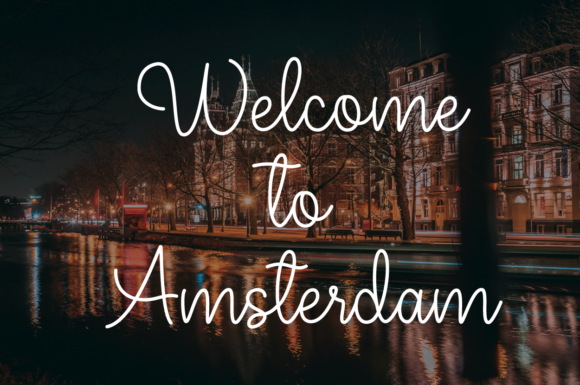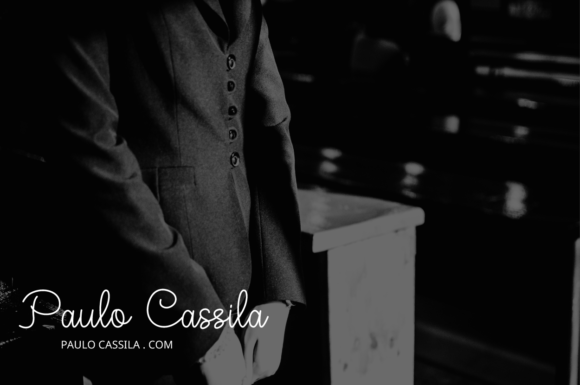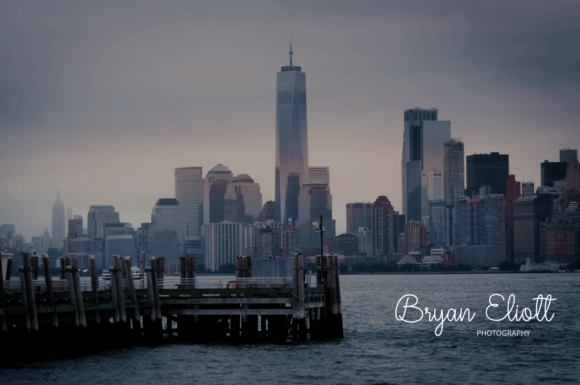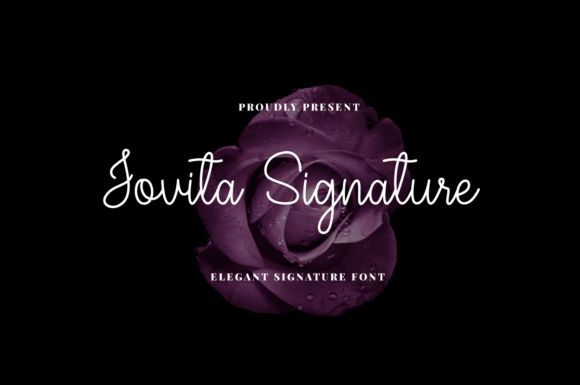
Introduction to Jovita Signature Font
Jovita Signature is a thin lettered, delicate and elegant script font.
Fall for its well-balanced characters and use it to create gorgeous wedding invitations, beautiful stationary art, eye-catching social media posts, and much more .
Key Features of Jovita Signature Font
Why Choose Jovita Signature Font?
Jovita Signature Font offers exceptional quality and versatility, making it a valuable addition to your design toolkit. Whether you’re creating for personal projects or commercial use, Jovita Signature Font delivers professional results.